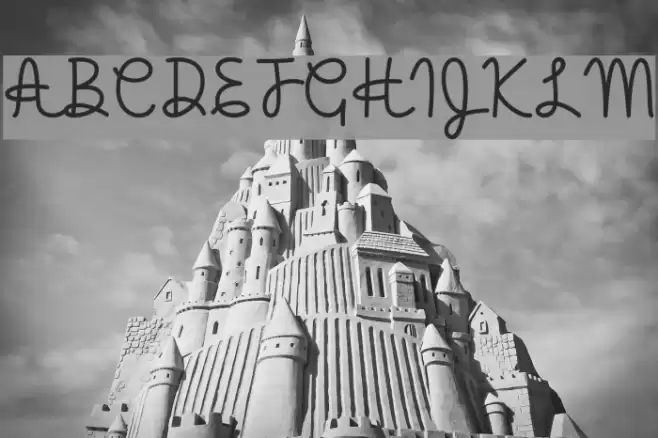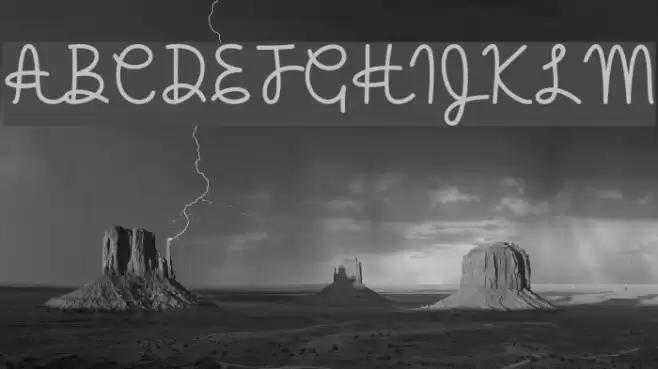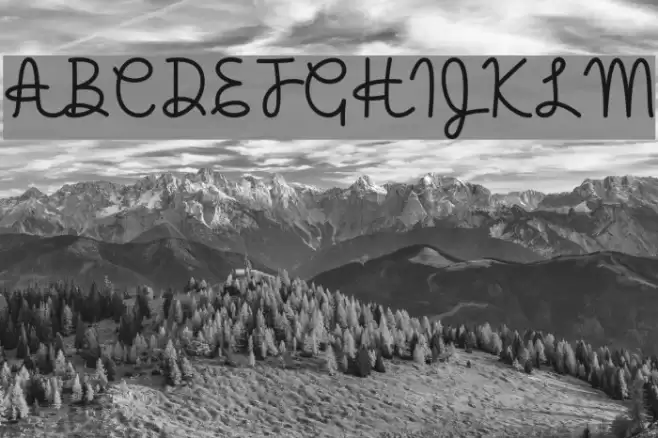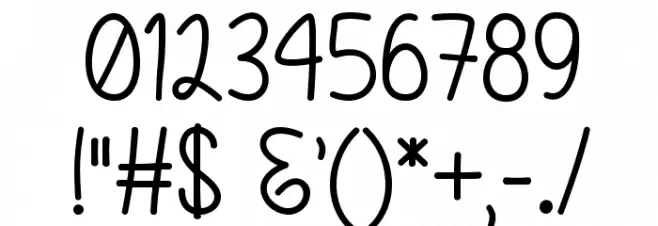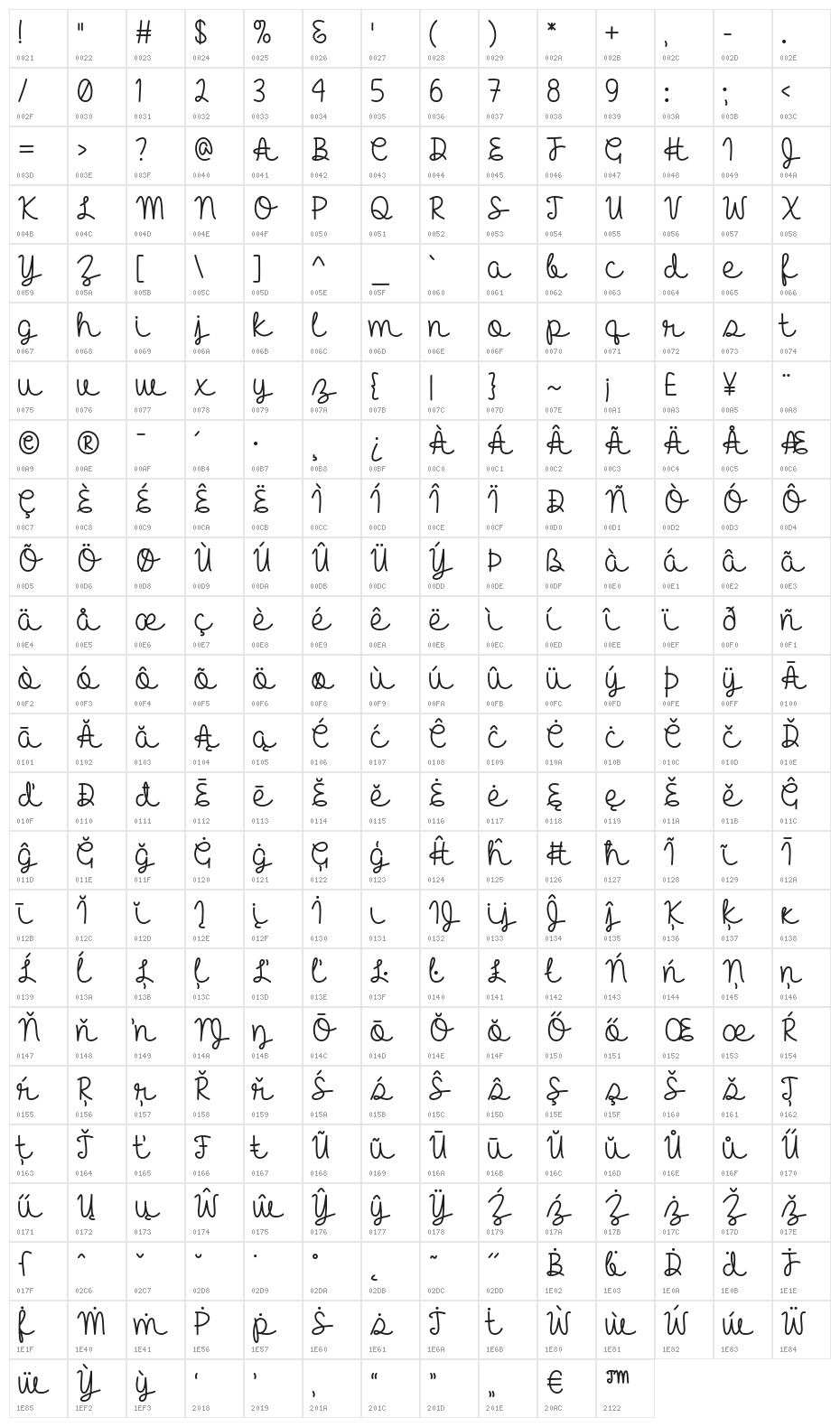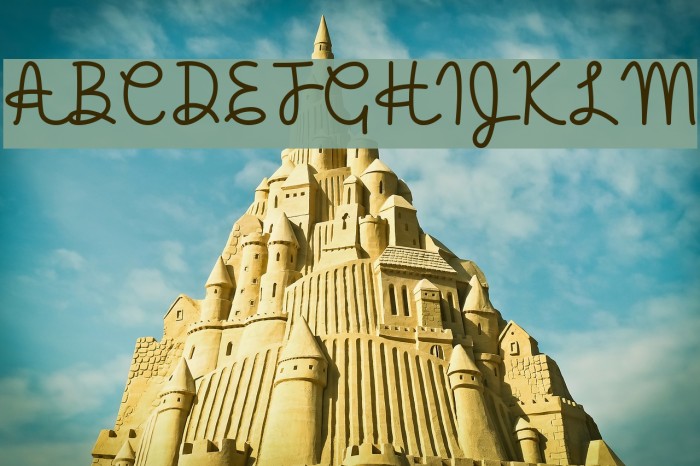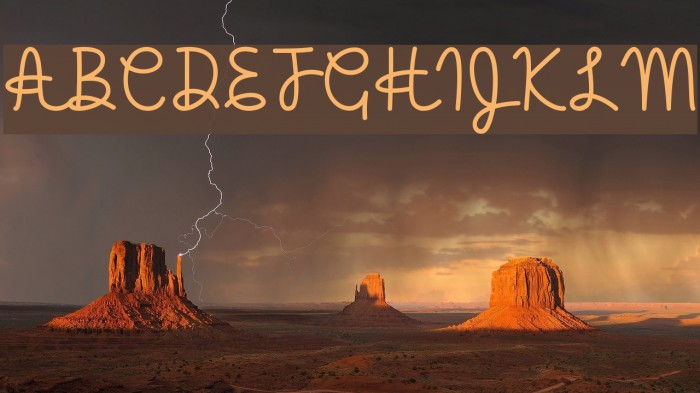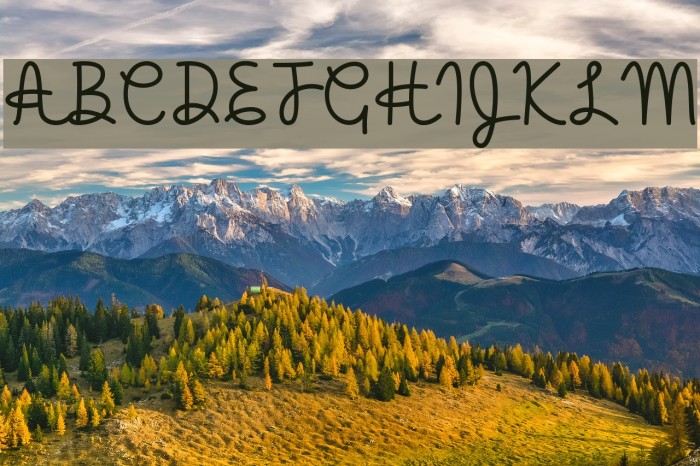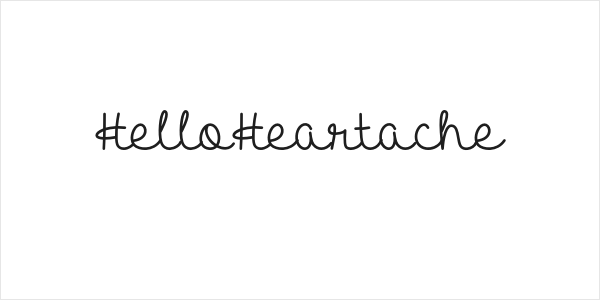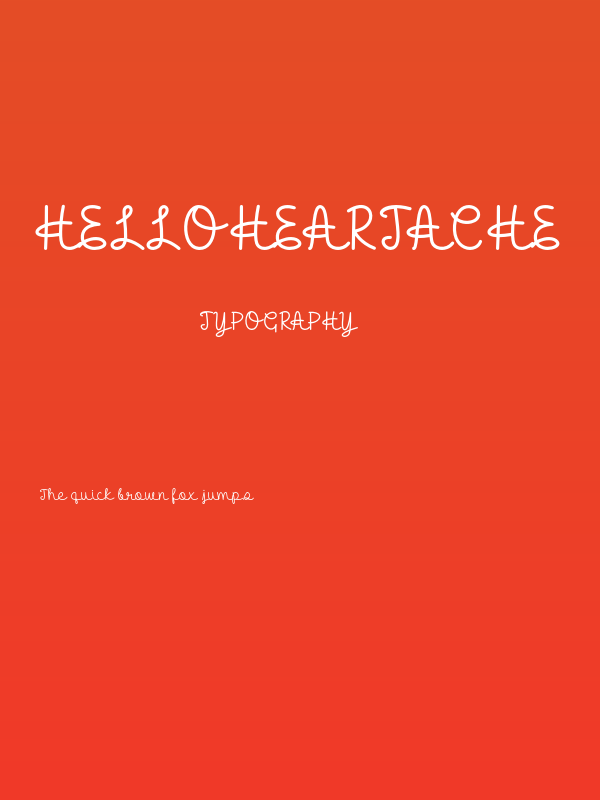
HelloHeartache Font
HelloHeartache Description
This font features a playful and casual handwritten style, characterized by its smooth, flowing lines and rounded edges. The letters are connected in a cursive manner, giving it a cohesive and continuous appearance. The uppercase letters maintain a consistent height, while the lowercase letters exhibit a slight variation in size, adding to the font's informal charm. The numerals are clear and legible, matching the overall style of the alphabet. Special characters are included, maintaining the same whimsical and approachable feel. This font is perfect for projects that require a personal touch, such as invitations, greeting cards, or branding materials.
A playful, cursive handwritten font with smooth, flowing lines from Uncategorized fonts.
- Proposed Projects: Ideal for invitations, greeting cards, personal branding, and creative projects.
- Overall Style: Casual, Playful
- Use Case: Headlines, Logos, Invitations